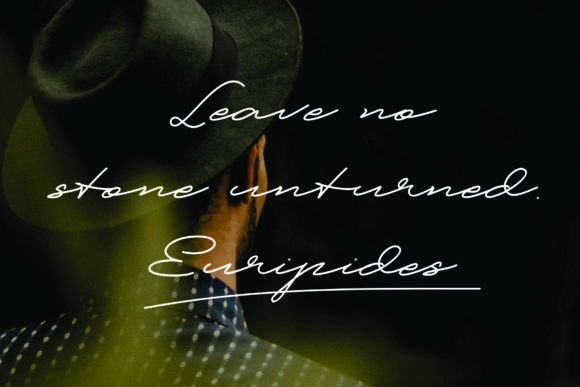
Patton Font
About Patton Font
Patton is a signature-like typeface suitable for any design project that requires a personalized appearance. Get inspired by its flowing curves!